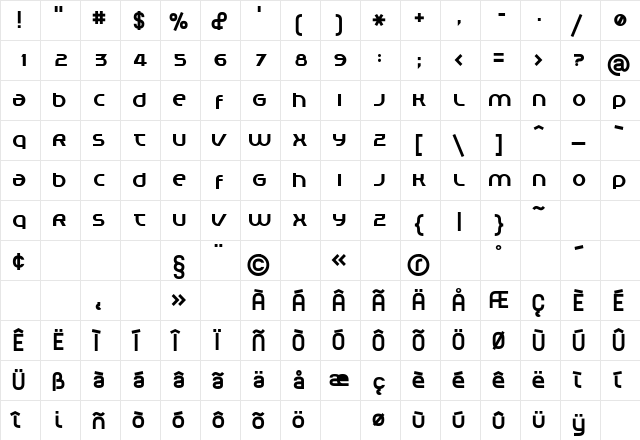
Planet Megapolis Regular
Design Context for Planet Megapolis Typeface
Planet Megapolis offers clean, dependable letterforms without strong stylistic allegiance, making it a practical choice for designers who need flexibility.
Pro Tip: Use Planet Megapolis in both headline and body roles to test its range before committing to a single application.